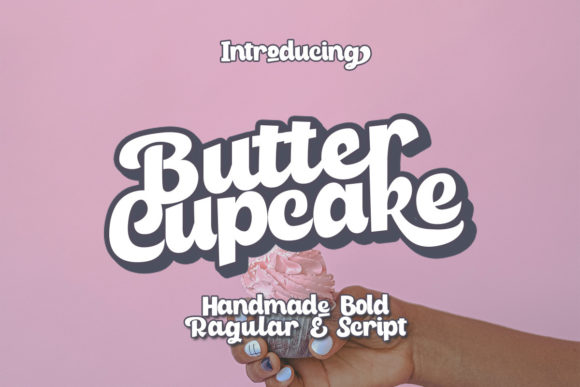
Journey into the world of Butter Cupcake Font, a captivating script font that oozes charm and playfulness. This font is a handwritten masterpiece, meticulously crafted by Lettercorner Studio, designed to add a touch of whimsy and uniqueness to your creative projects.
Unleash your imagination and let Butter Cupcake Font transport you to a realm of endless possibilities. Perfect for quotes, shirt designs, websites, branding, children's designs, SVG designs, blogs, logos, and invitations, this font is your ultimate creative companion.
Step into a world where your words come alive, dancing across the screen or printed page with an irresistible charm. Butter Cupcake Font is your secret weapon to capture attention, evoke emotions, and leave a lasting impression on your audience.
With Butter Cupcake Font, you'll discover a treasure trove of stunning glyphs and ligatures, easily accessible with PUA encoding. Unleash your creativity and let your designs flourish with endless variations and combinations.
Dive into the world of Butter Cupcake Font today and embark on a creative journey that will leave you breathless. Let your imagination soar, embrace the magic of this font, and transform your designs into works of art that resonate with your audience.